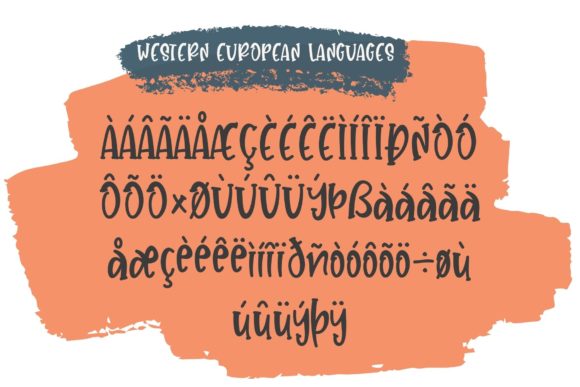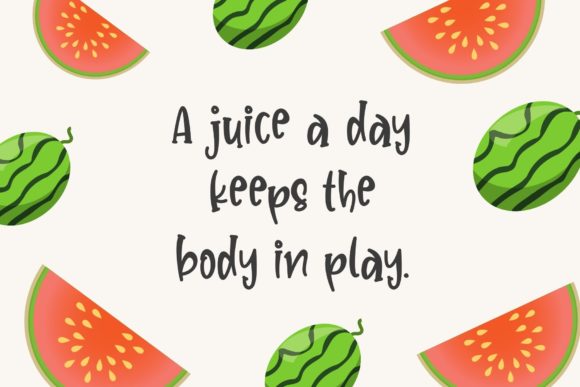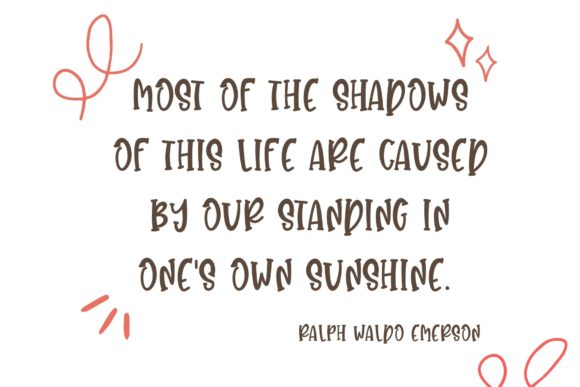
About Sunday Smoothies Font
Sunday Smoothies sounds like a delightful and versatile handwritten font that can add a touch of sweetness and charm to any design. With its cute and friendly style, this font is perfect for a wide range of creative projects. Here are some creative ideas on how to use Sunday Smoothies to add a refreshing and lively vibe to your designs:
1. Smoothie Bar Menus: Use Sunday Smoothies to create eye-catching and playful menus for smoothie bars or cafes, showcasing the delicious flavors and ingredients.
2. Recipe Cards: Design charming recipe cards with Sunday Smoothies, adding a cute touch to sharing favorite smoothie recipes with family and friends.
3. Food Blog Graphics: Apply Sunday Smoothies in graphics for food blogs or social media posts, featuring smoothie recipes, food illustrations, or food-related quotes.
4. Children’s Book Illustrations: Use Sunday Smoothies to create adorable and whimsical illustrations for children’s books, bringing characters and stories to life.
5. Healthy Lifestyle Flyers: Design informative flyers promoting healthy lifestyles, including smoothie recipes, fitness tips, and wellness quotes, using Sunday Smoothies.
6. Event Invitations: Apply Sunday Smoothies in event invitations, such as brunch gatherings, kids’ parties, or summer picnics, to add a cheerful and inviting feel.
7. Handmade Greeting Cards: Create cute and heartwarming handmade greeting cards with Sunday Smoothies for various occasions like birthdays, thank-you notes, or congratulations.
8. Social Media Graphics: Use Sunday Smoothies in social media posts to create engaging and cheerful graphics that capture attention and spread positivity.
9. Custom Stickers: Design fun and colorful stickers using Sunday Smoothies to add a touch of charm and personality to stationery, gifts, or packaging.
10. Inspirational Posters: Create posters with motivational messages or affirmations using Sunday Smoothies to inspire and uplift others.
11. Customized Mugs: Design personalized mugs with Sunday Smoothies, featuring cute illustrations or sweet messages.
12. DIY Crafts: Use Sunday Smoothies in various DIY craft projects, such as scrapbooking, card making, or creating personalized gifts.
13. Smoothie Bottle Labels: Apply Sunday Smoothies on smoothie bottle labels for a fun and engaging packaging design.
14. Party Decorations: Use Sunday Smoothies to create playful banners, signs, or party favors for themed parties and celebrations.
15. Children’s Apparel Graphics: Apply Sunday Smoothies in graphics for kids’ clothing, featuring adorable characters, animals, or playful elements.
16. Website Elements: Use Sunday Smoothies on website buttons, headers, or icons to add a friendly and approachable touch to the user interface.
17. Custom Planner Covers: Design custom planner covers with Sunday Smoothies, adding a whimsical and lively touch to daily organization.
18. Fruit Shop Signage: Apply Sunday Smoothies in signage for fruit shops or farmer’s markets, giving a warm and welcoming feel.
19. DIY Smoothie Bar: Create a DIY smoothie bar at home or at events, using Sunday Smoothies in signage, labels, and menu cards for a delightful experience.
20. Kids’ Party Decorations: Use Sunday Smoothies to create cute decorations and party elements for kids’ birthday parties or special events.
In conclusion, Sunday Smoothies is a cute and friendly handwritten font that can add a touch of sweetness and charm to a wide variety of designs. Its versatility allows it to shine in various creative projects, from smoothie bar menus to food blog graphics and handmade greeting cards. Embrace the cheerful and playful nature of Sunday Smoothies, and let it breathe life into your creative ideas, making them come alive with a delightful and refreshing vibe!